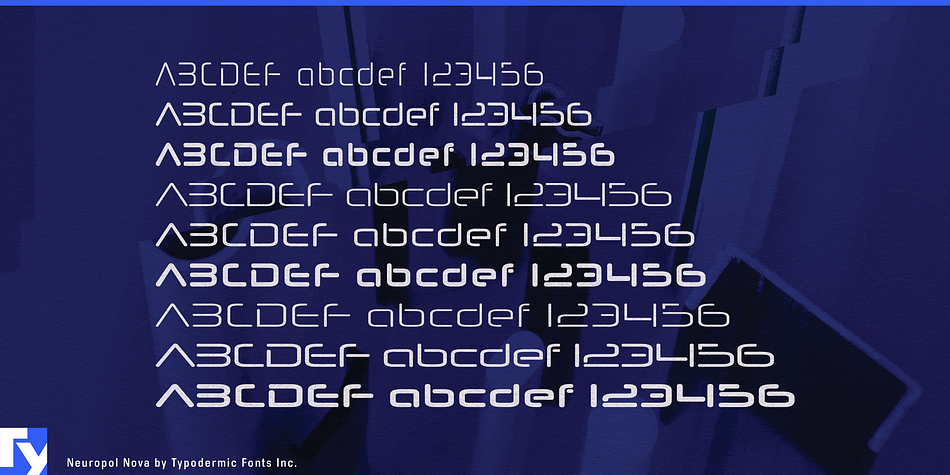
Neuropol Nova
Neuropol Nova is a display sans and stencil font family. This typeface has eighteen styles and was published by Typodermic Fonts Inc.
Neuropol Nova is more than just a typeface, it’s a portal to a world of hard sci-fi design. Inspired by Neuropol X, this typeface transports us to a chilling and distant future, one where letterforms are stripped down to their most essential components. The stark, almost clinical aesthetic of Neuropol Nova is reminiscent of a high-tech laboratory or the sterile environment of a spaceship’s bridge.
Neuropol Nova pushes the boundaries of letterform recognition to levels that are truly ultra-futuristic. The sparsely connected patterns that make up the letters evoke a sense of ancient cuneiform markings, or perhaps even the language of a highly advanced alien civilization from a distant, unknown future.
The choice of three widths, three weights, and italics only adds to the versatility of this incredible typeface. With its strategic overtones, Neuropol Nova is ideal for any designer looking to create a design that screams of a dystopian future. Whether you’re working on a sci-fi novel cover or a video game interface, Neuropol Nova is the perfect typeface to transport your audience to a world of cutting-edge design.
In conclusion, Neuropol Nova is more than just a typeface, it’s a masterful creation that seamlessly blends the past, present, and future of typography. So if you’re looking for a font that will truly set your design apart, look no further than Neuropol Nova.